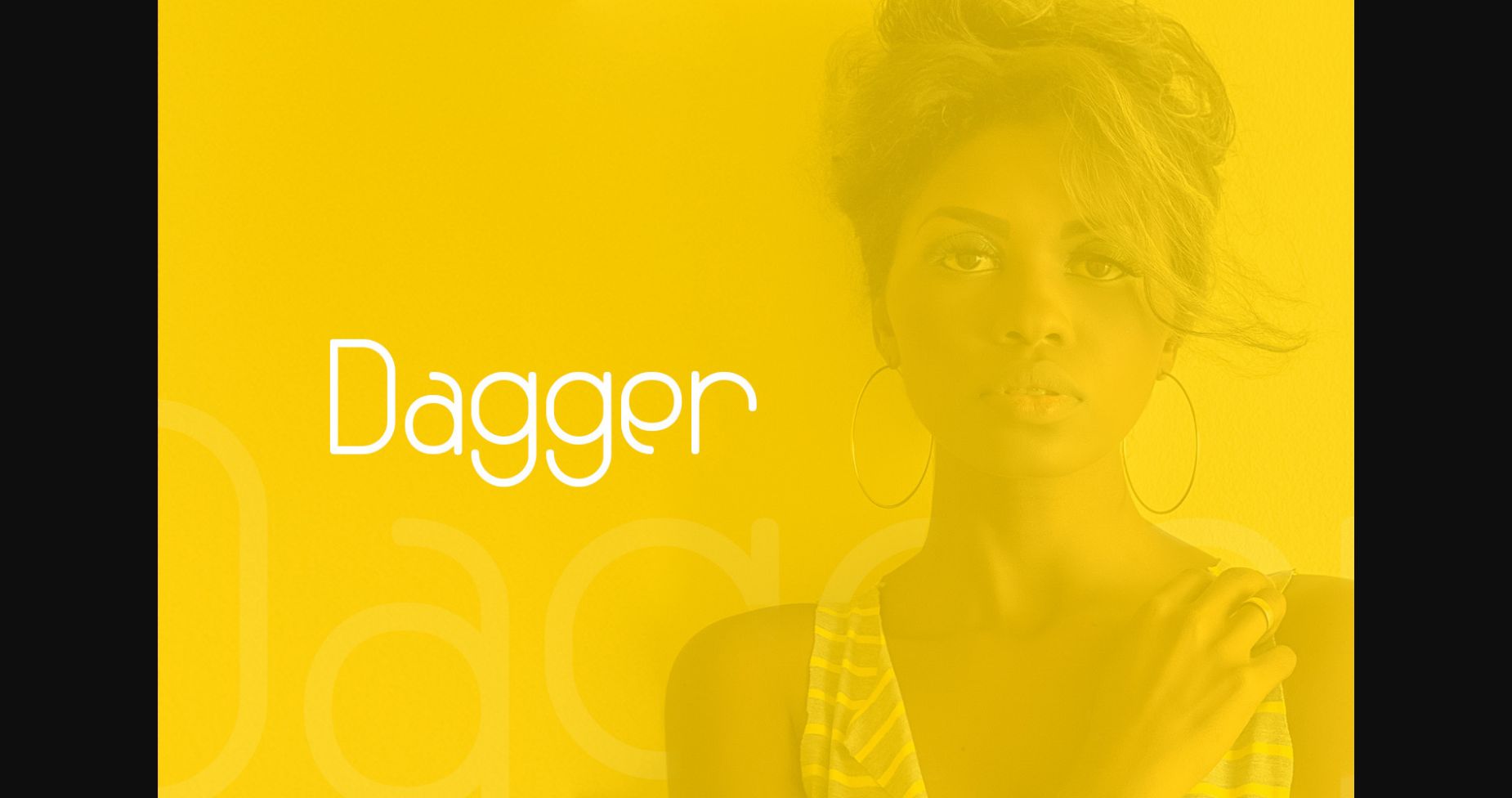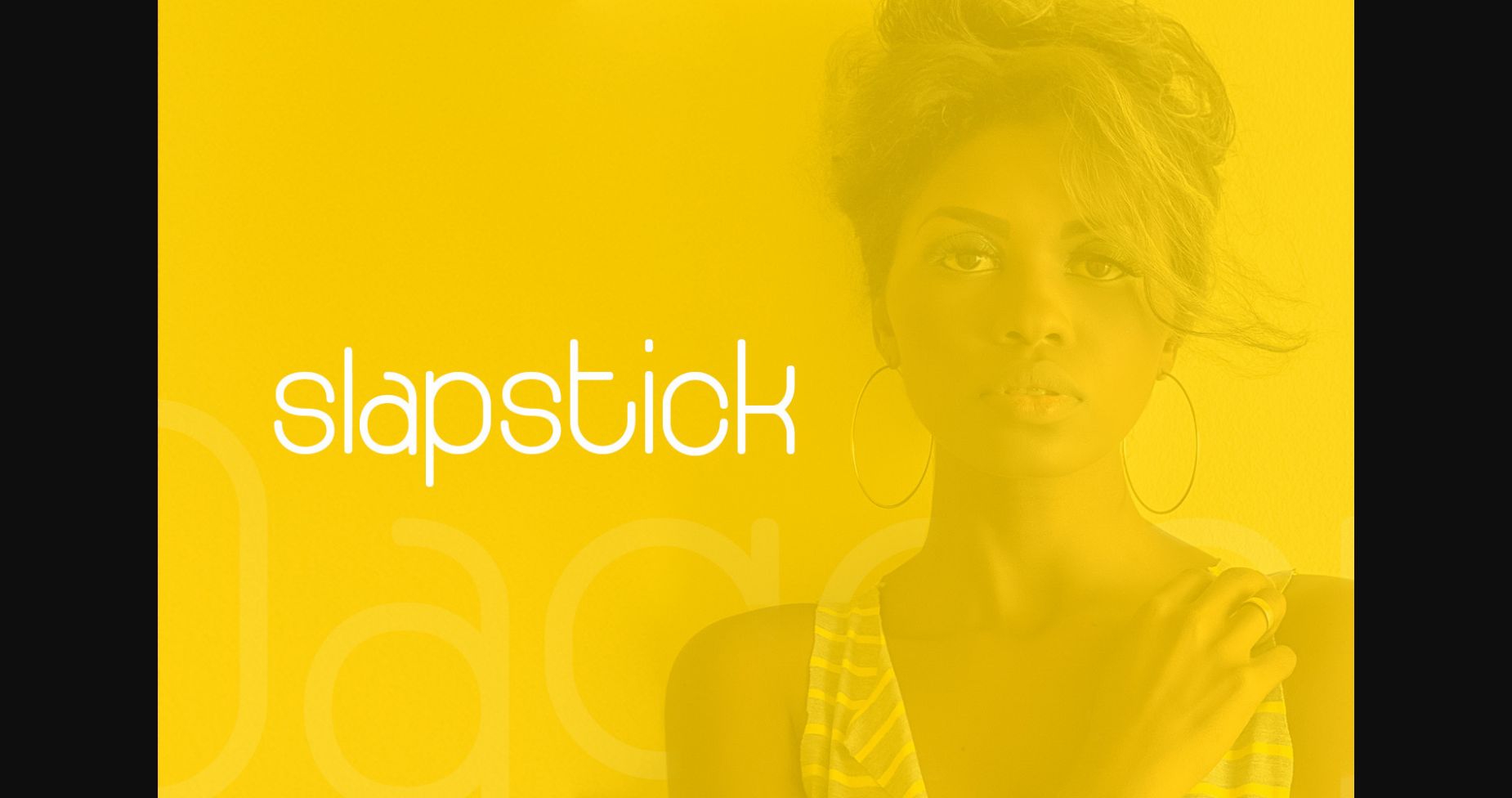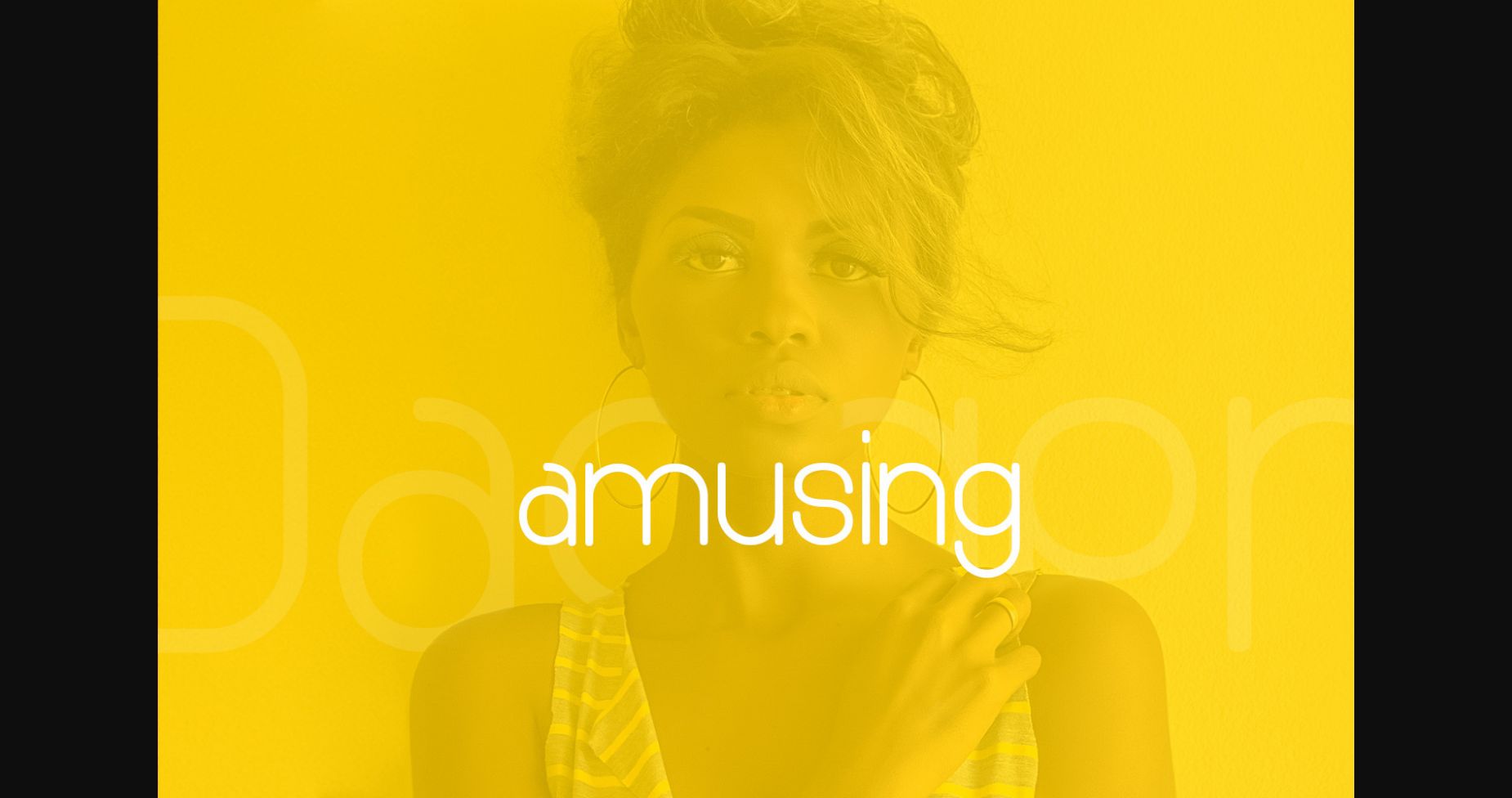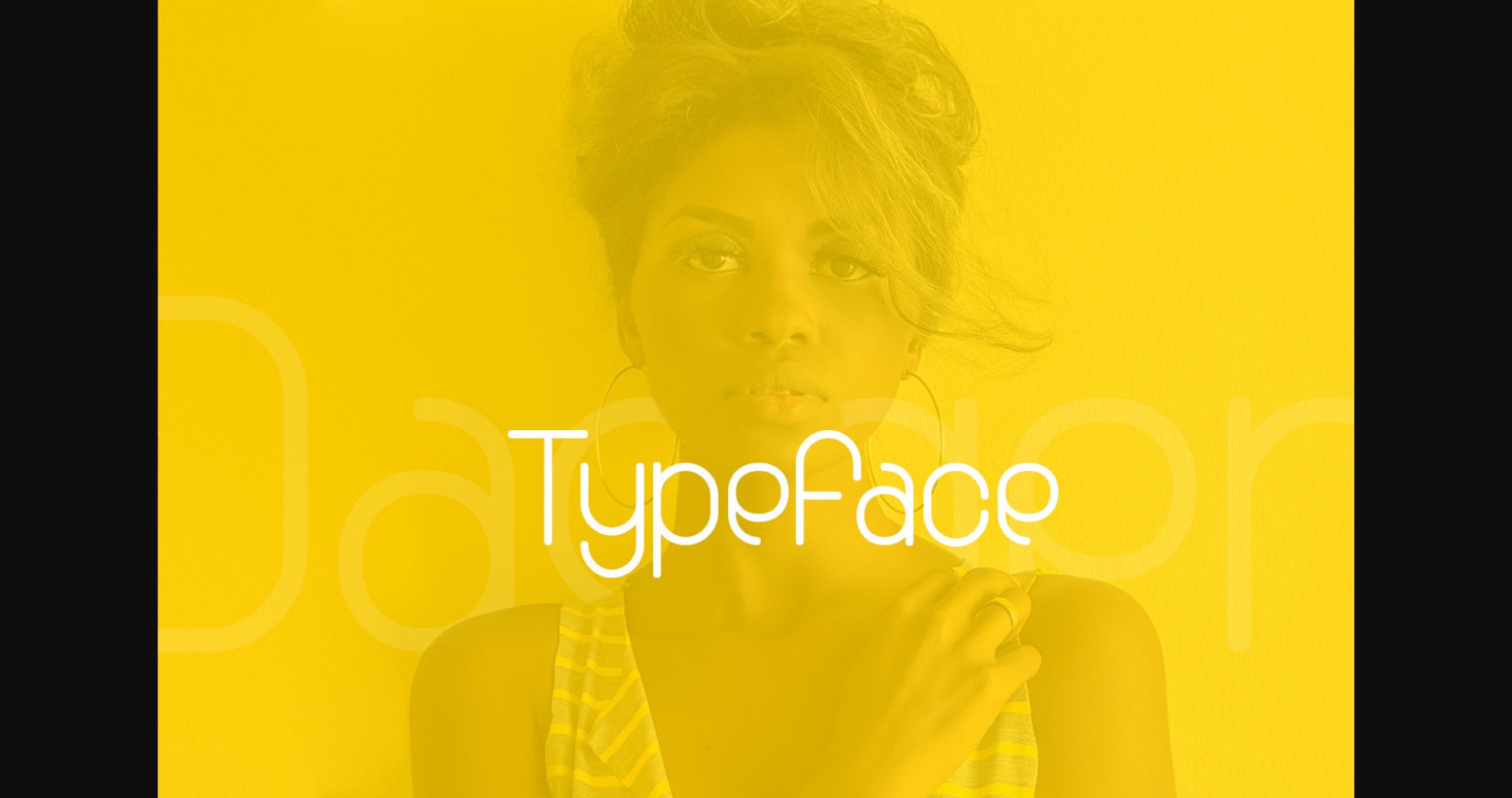
About Dagger Font
Dagger is a thin and clean sans serif font. It can easily be matched to an incredibly large set of projects, so add it to your creative ideas and notice how it makes them stand out!